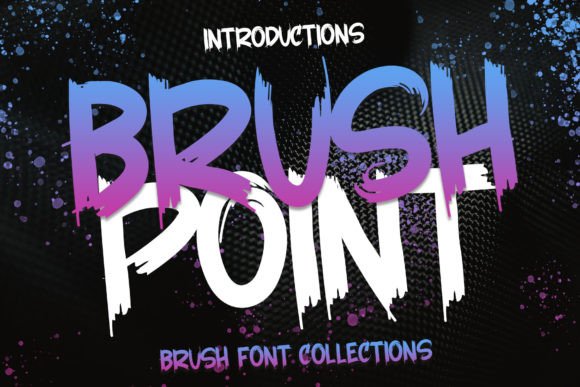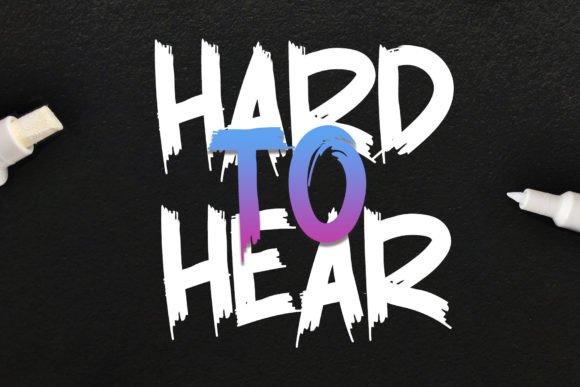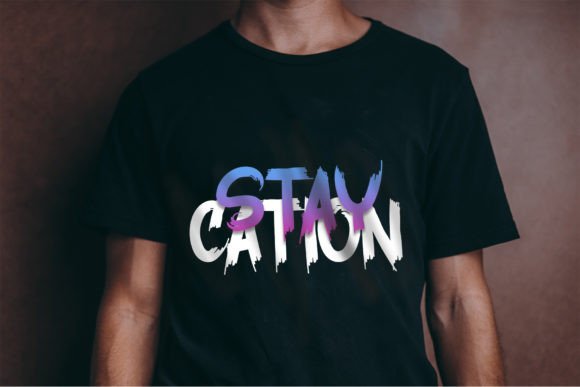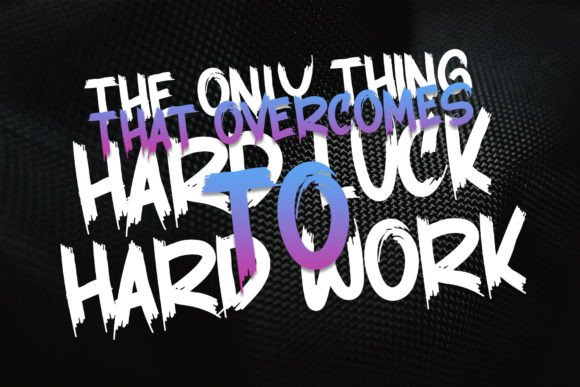
Brush Point Font: Bold Display Typography for Cricut & DIY Projects
About the Brush Point Font
Crafted with precision, the Brush Point Font is ready to bring your ideas to life. Brush Point is a stylish brush font with a contemporary atmosphere and impeccable form, inspired by timeless classic calligraphy. Balanced and varied, this font was designed to enhance the beauty of your projects.
Brush Point excels in headline applications, short text blocks on posters or packaging, and branding elements where a touch of elegant informality is desired. Its stylish brush strokes create impact, making it unsuitable for body text or lengthy paragraphs, where readability would suffer. Avoid using it in user interfaces (UI) due to its less-than-optimal legibility at smaller sizes.
The font’s core personality is sophisticated yet approachable. It projects a modern, slightly rebellious energy, perfect for brands targeting a discerning audience interested in art, fashion, or artisanal goods.
Pairing Brush Point with a clean sans-serif like Montserrat or a neutral serif such as Lato provides a strong contrast and enhances readability. For a more playful feel, consider pairing it with a light script font, but ensure sufficient contrast for legibility.
Brush Point Font Usage Examples
Brush Point Font Example